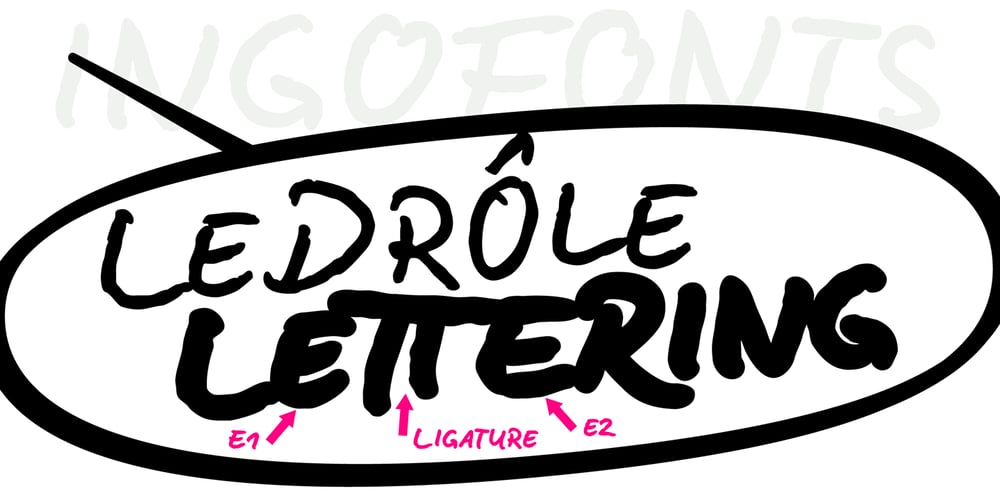
LeDrôle Lettering Pro Font Family was designed by Ingo Zimmermann and published by Ingo. LeDrôle Lettering Pro contains 4 styles and family package options. The Comic-Script by ingoFontsIn the past cartoons used to be lettered by hand. Hardly anyone does this today. The reason is, because hardly anyone has nice handwriting these days, so there are practical advantages in having a special font. However the font should still look like it’s been written by hand. Well, most script fonts don’t meet this requirement.The LeDrôle Lettering is a computer font, but closely resembles genuine handwriting.The model for the LeDrôle Lettering is my personal handwriting, as can be seen on the example of the Biró Script, which is also an ingoFont.The habit of capitalization comes from the Romanic and Anglo-Saxon countries. Depending on the purpose they are designed in three significantly bolder weights.In order for the typeface to actually look handwritten, it needs to have clearly visible irregularities. These are not found only in the shapes of the individual letters. Even though LeDrôle Lettering is all in capital letters, the characters of uppercase and lowercase letters are clearly different. Additionally, many alternative shapes are used, which are automatically applied when the OpenType “Ligatures” feature is activated. Thus, there are no identical double letters or numerals, and many character combinations are defined as ligatures with alternative forms.